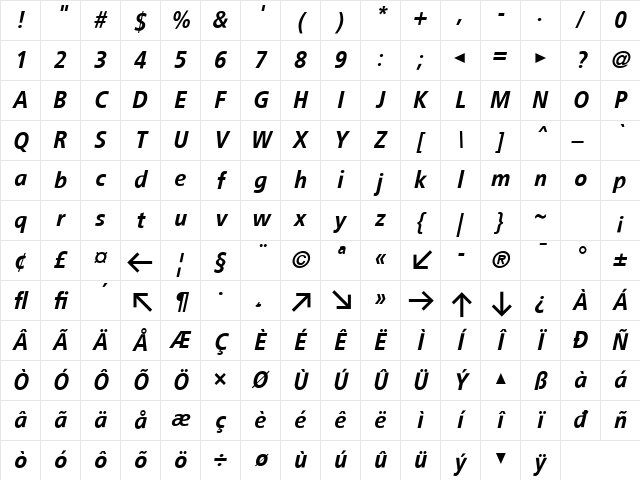
Complete TransitBack Italic glyph index. Displaying only characters natively supported by TransitBack Italic font.
TransitBack is a composed and adaptable typeface that performs quietly and consistently across a wide range of design contexts. The slanted form adds forward momentum and visual energy.
Pro Tip: Use TransitBack for emphasis, pull quotes, and subheadings where its slanted energy can add rhythm to the layout.